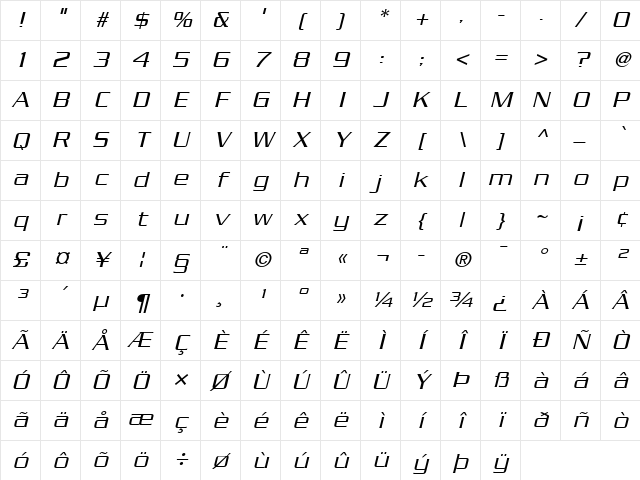
Serpentine LT Light Italic
Serpentine LT Light Family
Serpentine LT Light Italic
Design Context for Serpentine LT Light
Serpentine LT Light is a composed and adaptable typeface that performs quietly and consistently across a wide range of design contexts. The slanted form adds forward momentum and visual energy. Its slender proportions lend an understated elegance to any composition.
Pro Tip: Use Serpentine LT Light for emphasis, pull quotes, and subheadings where its slanted energy can add rhythm to the layout.